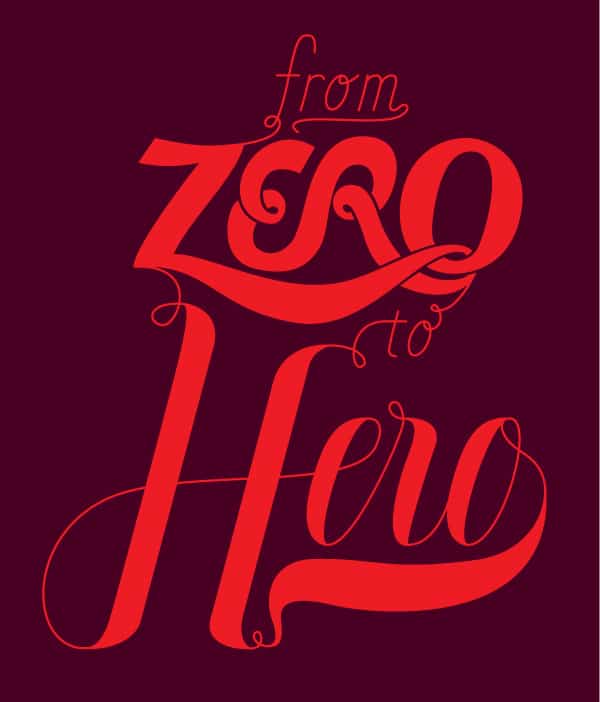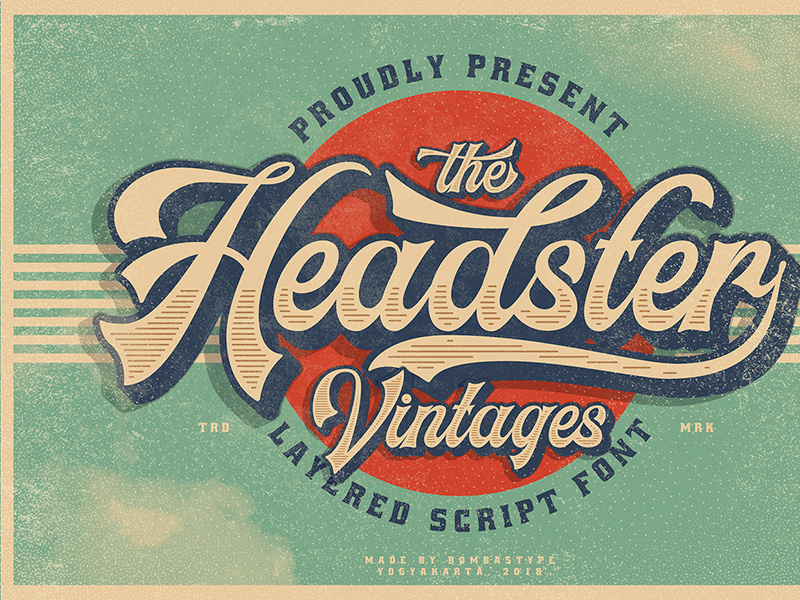
Retro Script Font Adobe
Retro Script Font Adobe. The retro cursive font comes in a bold monoline, perfect for creative projects. Explore the latest additions to our font library at adobe fonts.
Influenced by 50s apparel, this retro script from tanziladd also has a modern feeling to it, thanks to its ligatures and swashes. Editable and easy to work with. Search for fonts by foundry, designer, properties, languages, classifications, and more.
The Burtons Retro Font Is An Elegant Rustic Sans Serif Paired With An Airy Script To Give You That Charming Retro Feel To Your Text.
These Retro Fonts Are Great For Vintage Style Posters Or Other Pieces Of Work To Get A Familiar Yet Old Age Look.
Download this retro font for your branding and identity, logo, advertising,. Search for fonts by foundry, designer, properties, languages, classifications, and more. Drizy brings to you this ultra sharp gem that’s sure to slash through the competition and make headlines.
If we could deliver to you scratch and sniff fonts, these would smell like burnt marshmallows, campfire smoke. Midway is a beautiful retro script font that features the same groovy and thick letter designs you’ve seen in classic 80s signage and billboards. Download free ansley display kady jesko.
Use a faded color scheme to. You can almost smell the hot rod fuel and optimism there. Vector stock vector and explore similar vectors at adobe stock.
Celebrate Retro À By 177Studio.